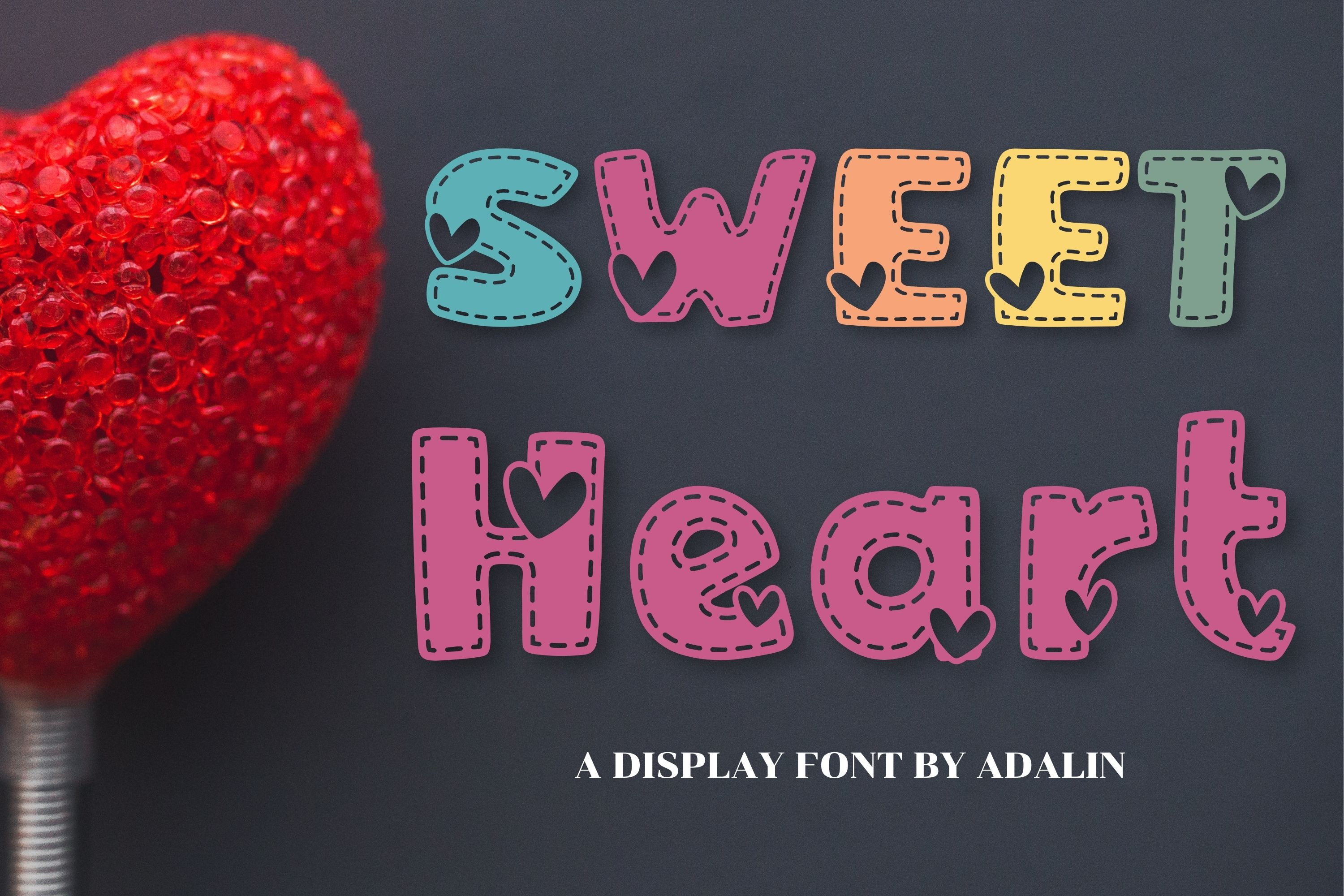
Sweet Heart - Display Font
Sweet Heart is a cute decorative Valentine font ideal for crafting, Procreate, Valentine gifts, kids’ projects, Valentine cards, Social Media Designs, Signs, t-shirt designs, greeting cards, invitations, mugs, banners, and more!
- Sweet Heart Font 2 style - type in uppercase and lowercase with hearts